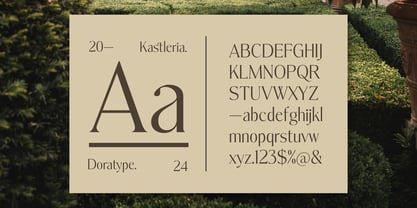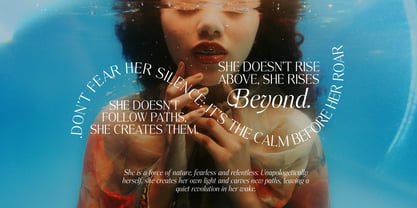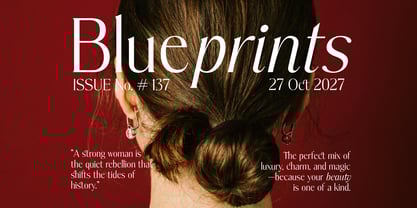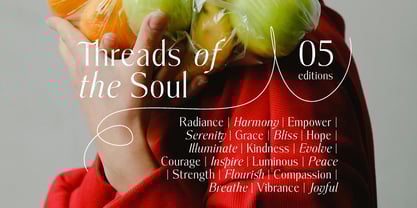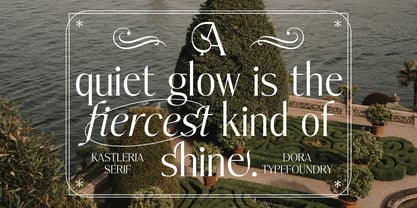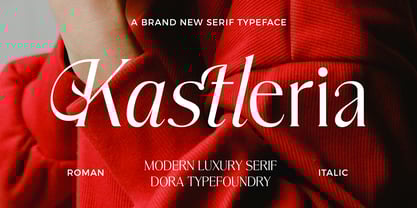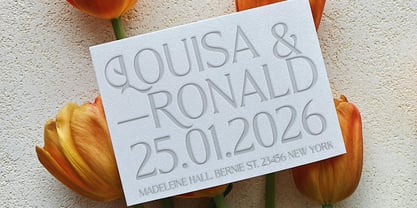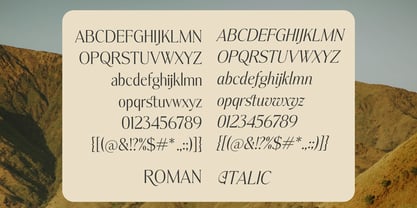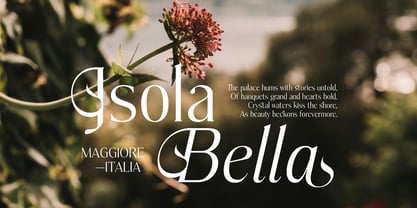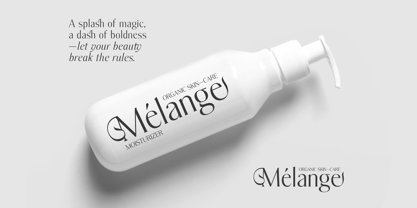
Kastleria
by Dora Typefoundry
The Kastleria Font Family was designed by Zahratul Laila and published by Dora Typefoundry. Kastleria contains 2 styles and family package options. More about this family
Kastleria is a sophisticated serif typeface with a true italic version created to bring contrast, wrinkle, and refinement to your work, offering clean lines and a timeless aesthetic, with classic style and modern flexibility. You can use this font for a variety of purposes such as branding, logos, editorial designs, invitations, and more.
Designers: Zahratul Laila
Foundry: Dora Typefoundry